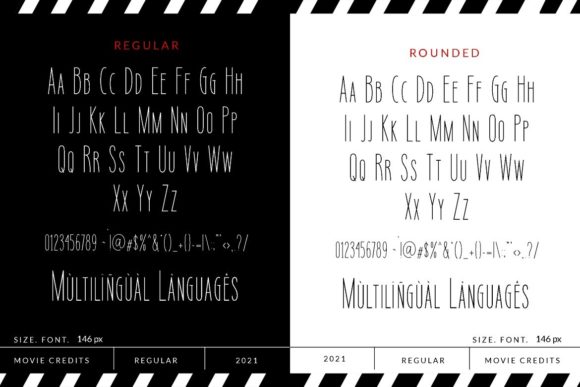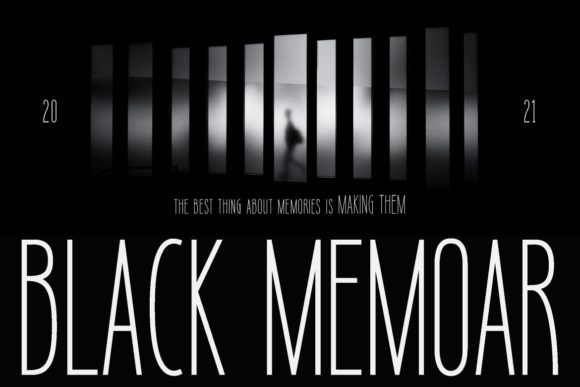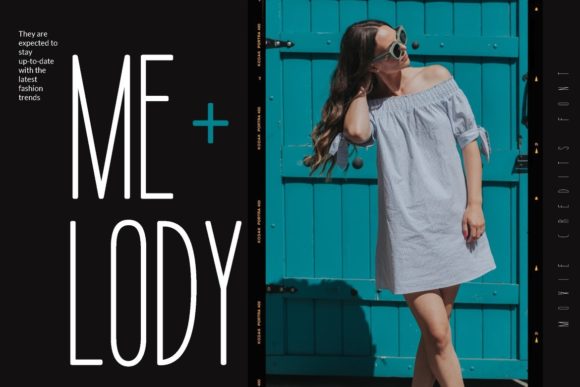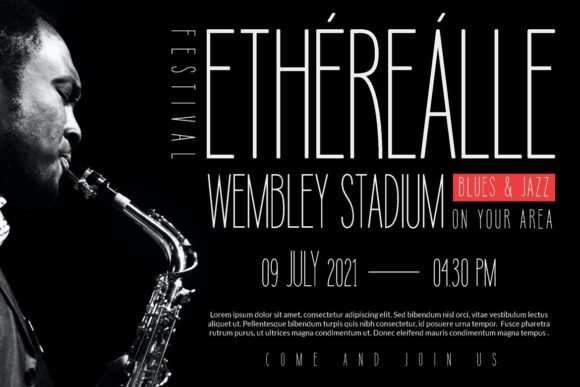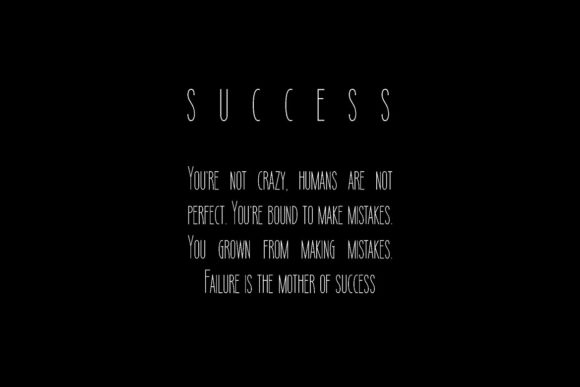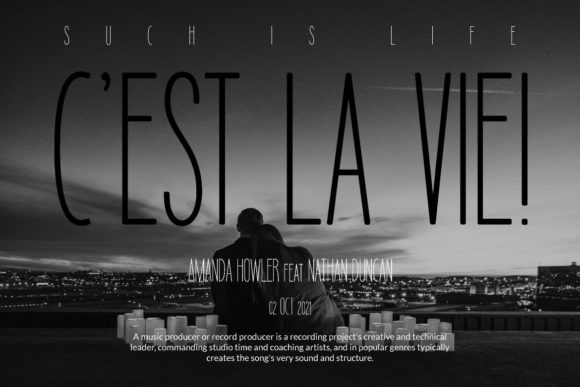
Introduction to Movie Credits Font
Movie Credits is a minimal and neat sans serif font.
Key Features of Movie Credits Font
Why Choose Movie Credits Font?
Movie Credits Font offers exceptional quality and versatility, making it a valuable addition to your design toolkit. Whether you’re creating for personal projects or commercial use, Movie Credits Font delivers professional results.